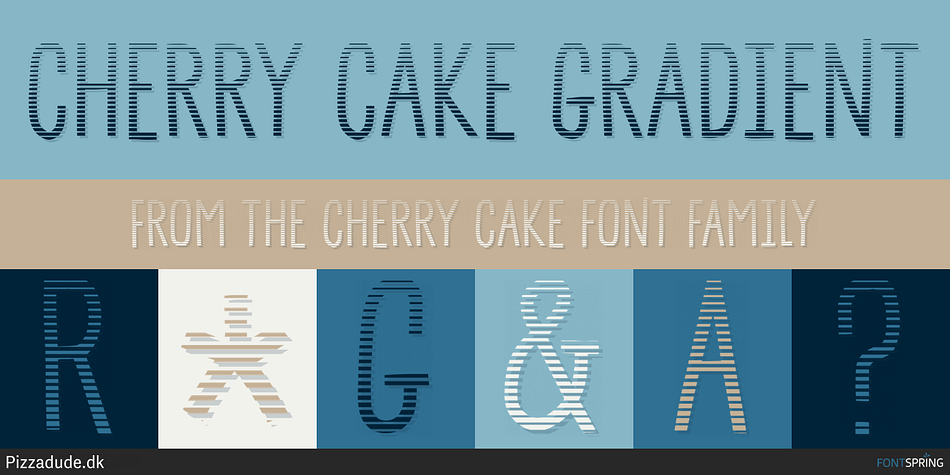
CHERRY CAKE GRADIENT
Designed by Jakob Fischer, Cherry Cake is a hand display font family. This typeface has four styles and was published by Pizzadude.dk.
A handmade and digitally re-traced font. Very suitable for headlines that needs that simple, yet handmade and legible look!